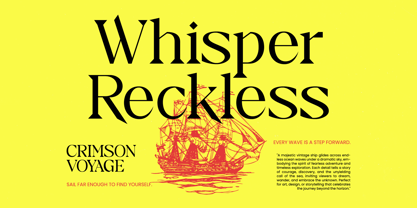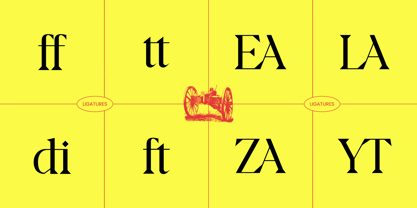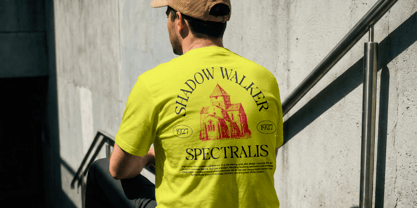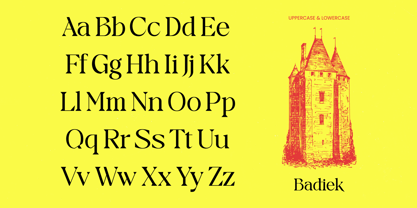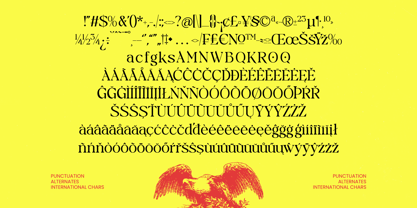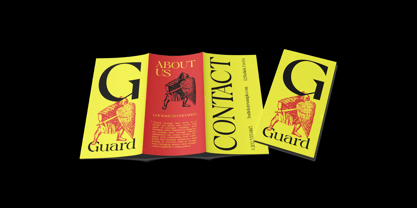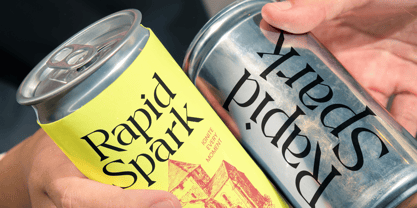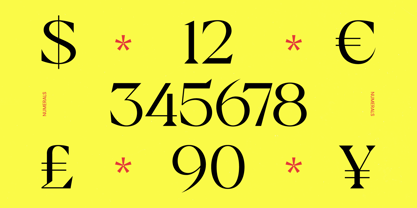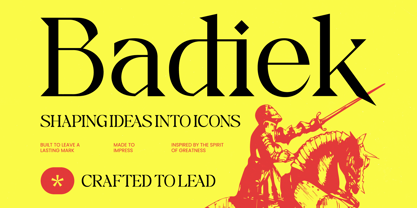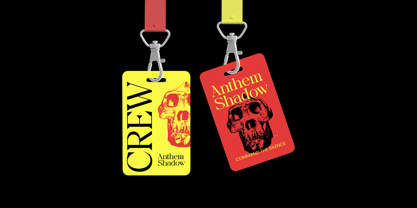
Badiek
La familia tipográfica Badiek fue diseñada por Heru Utama Putra y publicada por Timelesstype Studio. Badiek contiene 2 estilos y opciones de paquete familiar. Más información sobre esta familia
Elevate your design identity with Badiek – Serif Display, a typeface that commands attention through its striking high-contrast letterforms and sharp, aggressive serifs. This display font masterfully blends classical elegance with a modern edge, offering a visual impact that is both timeless and provocative. The balance of thick and thin strokes ensures that Badiek – Serif Display remains the focal point of any composition, making it an essential asset for designers seeking a sophisticated aesthetic.